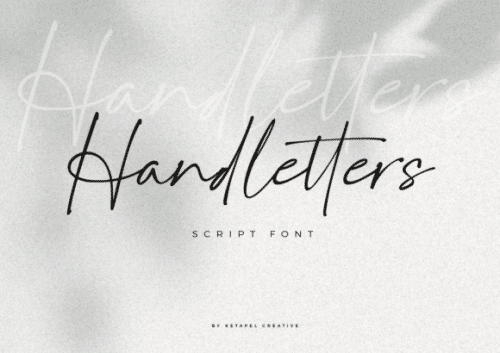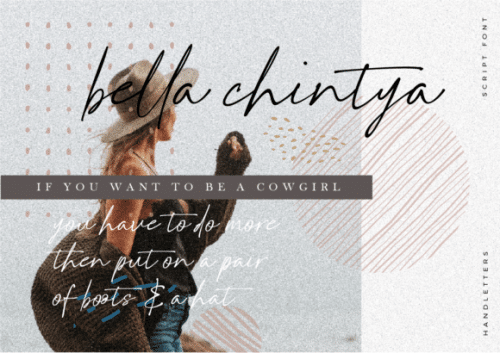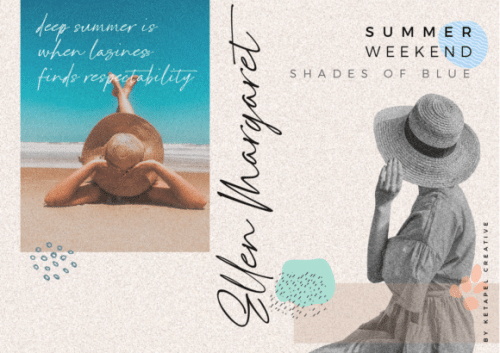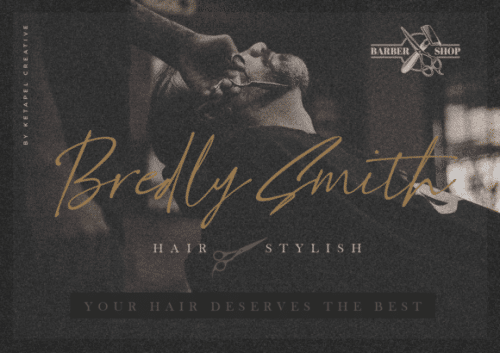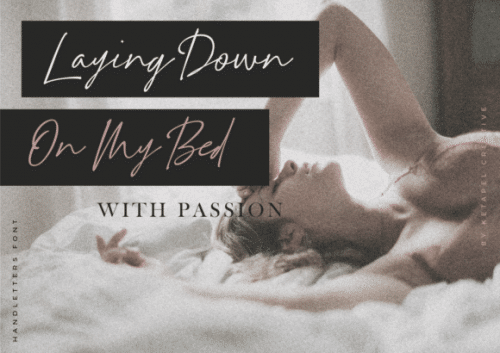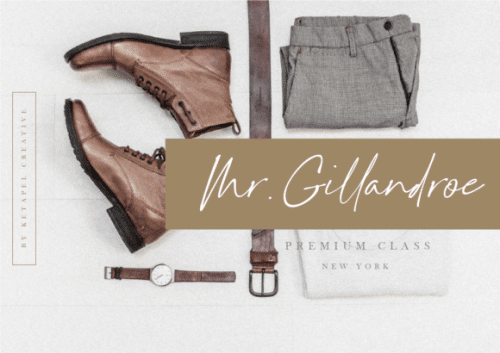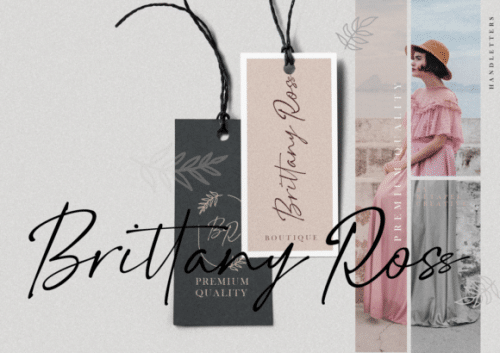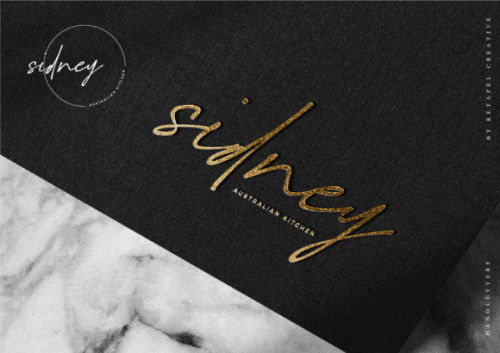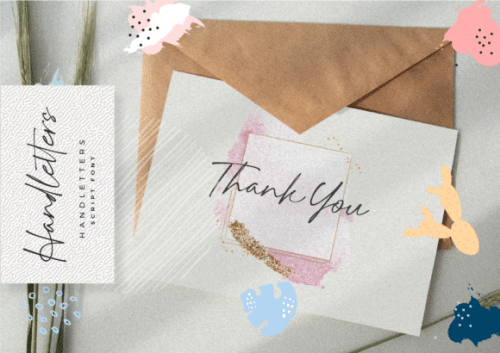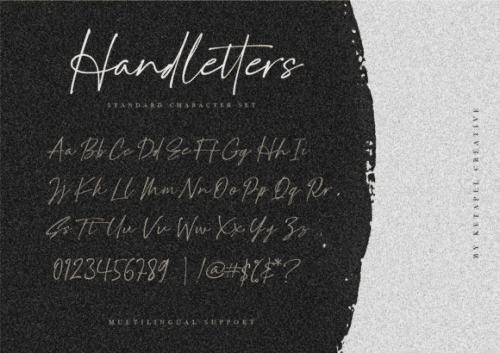
Handletters Handwritten Script Font
Handletters Script Font is an incredibly distinct, delicate and timeless handwritten font. Made for any professional project branding.
It looks stunning on wedding invitations, thank you cards, quotes, greeting cards, logos, business cards and every other design which needs a handwritten touch.